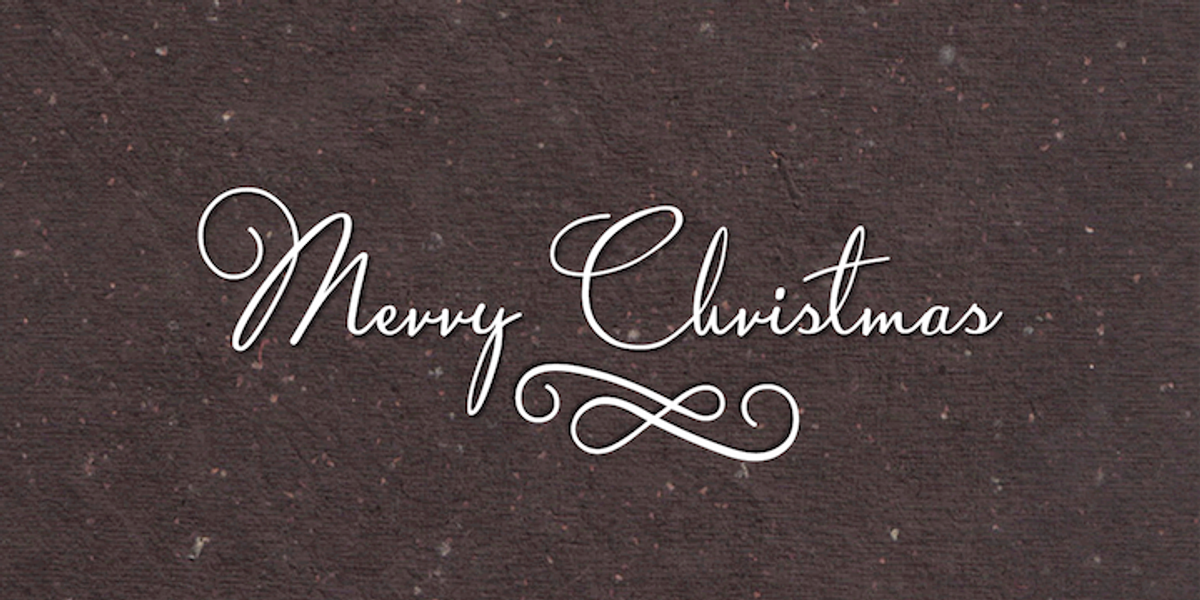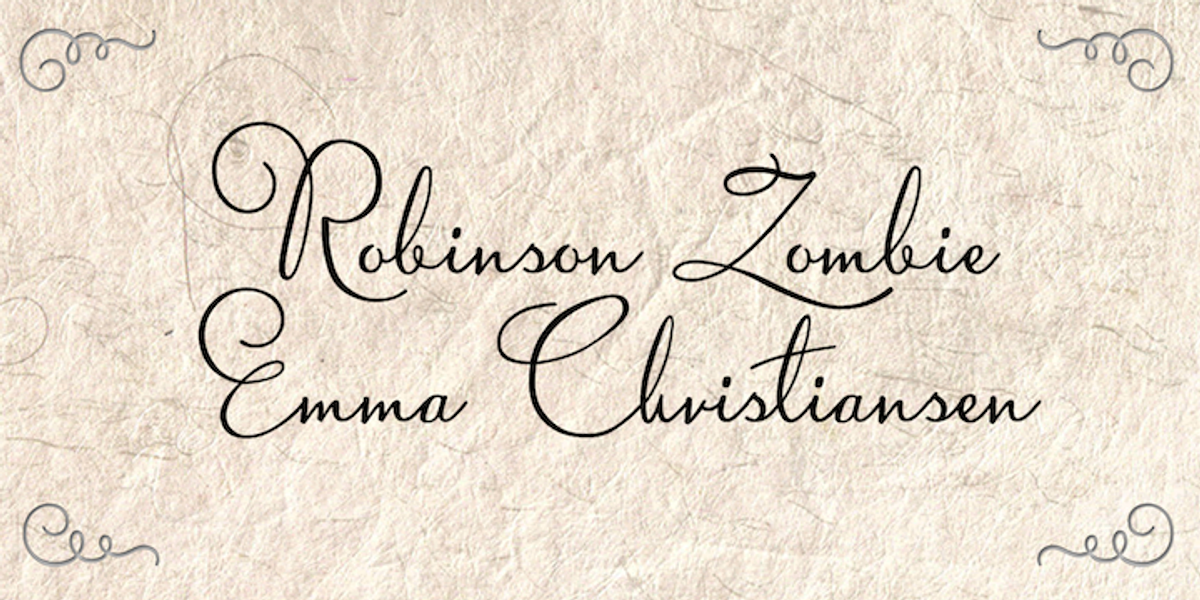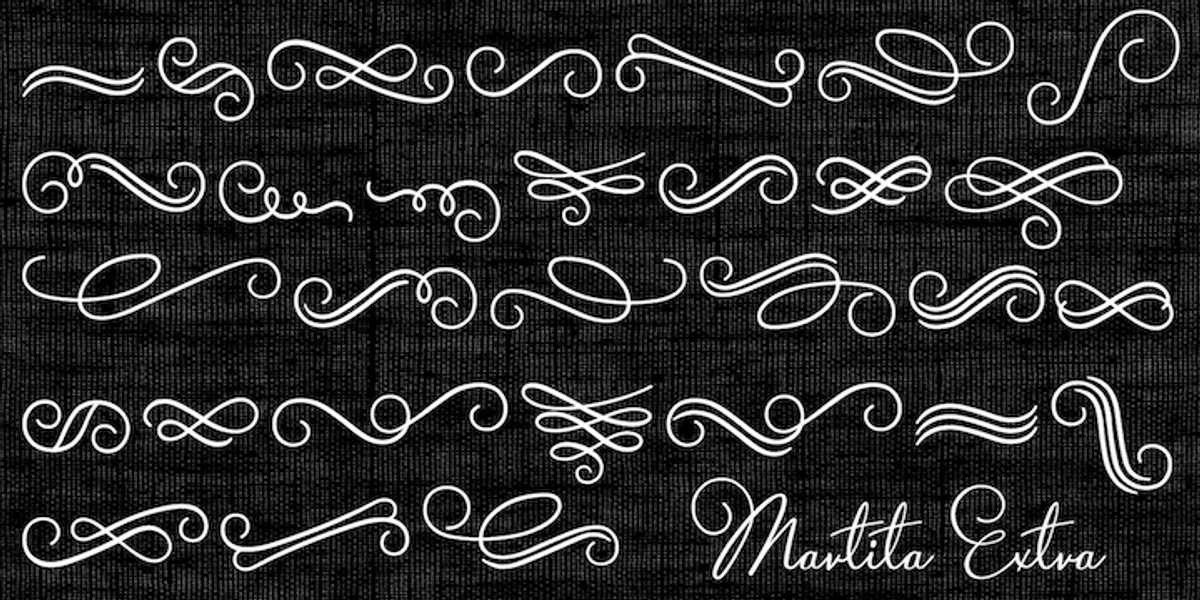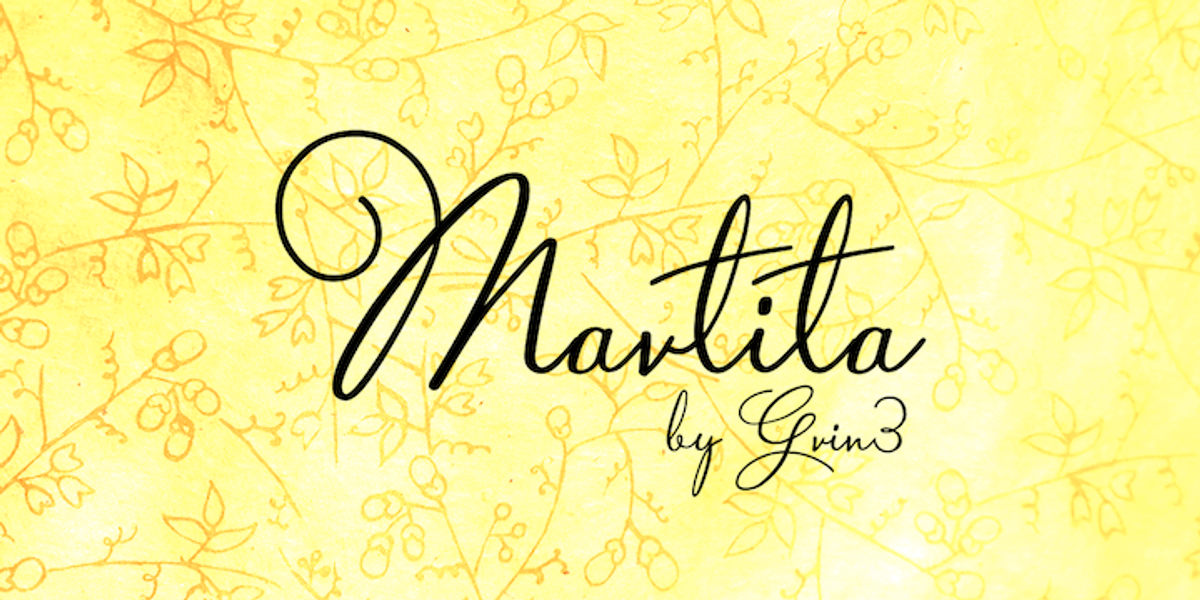
Martita
Martita is an elegant script font designed for readability with its fully connected letterforms and ligatures. Its formal style makes it suitable for a variety of applications including invitations, greeting cards, posters, advertising, wedding stationery, books, and menus.